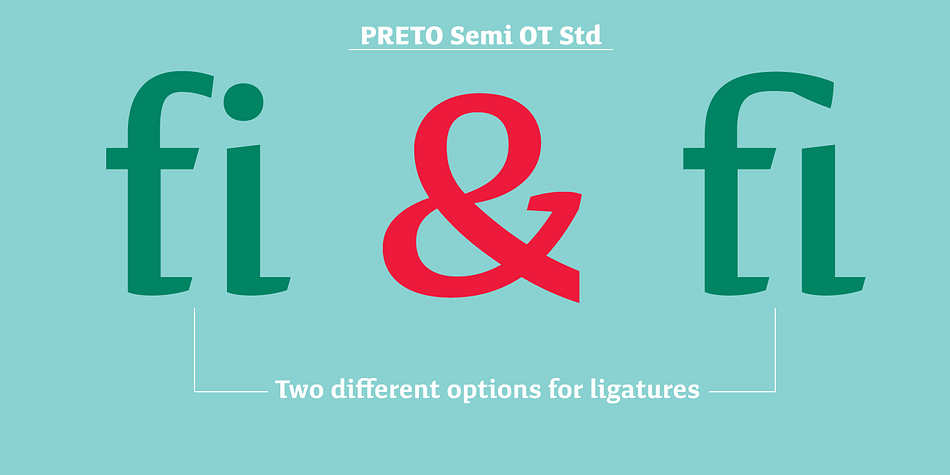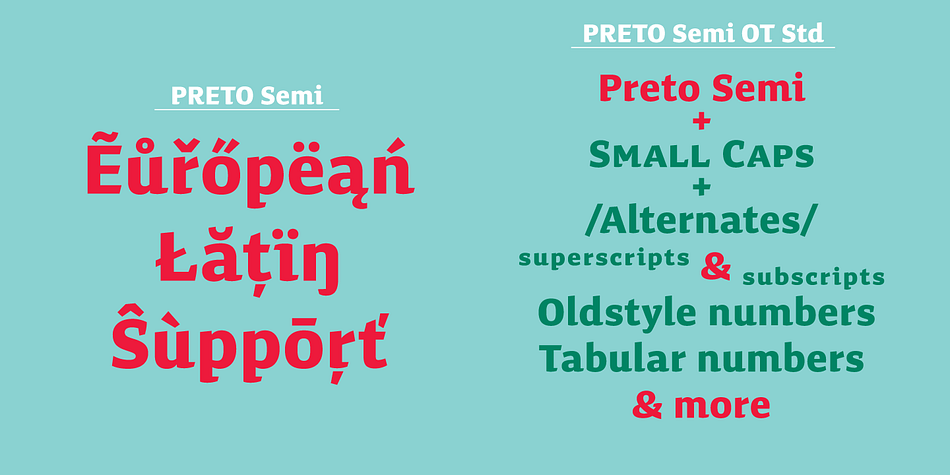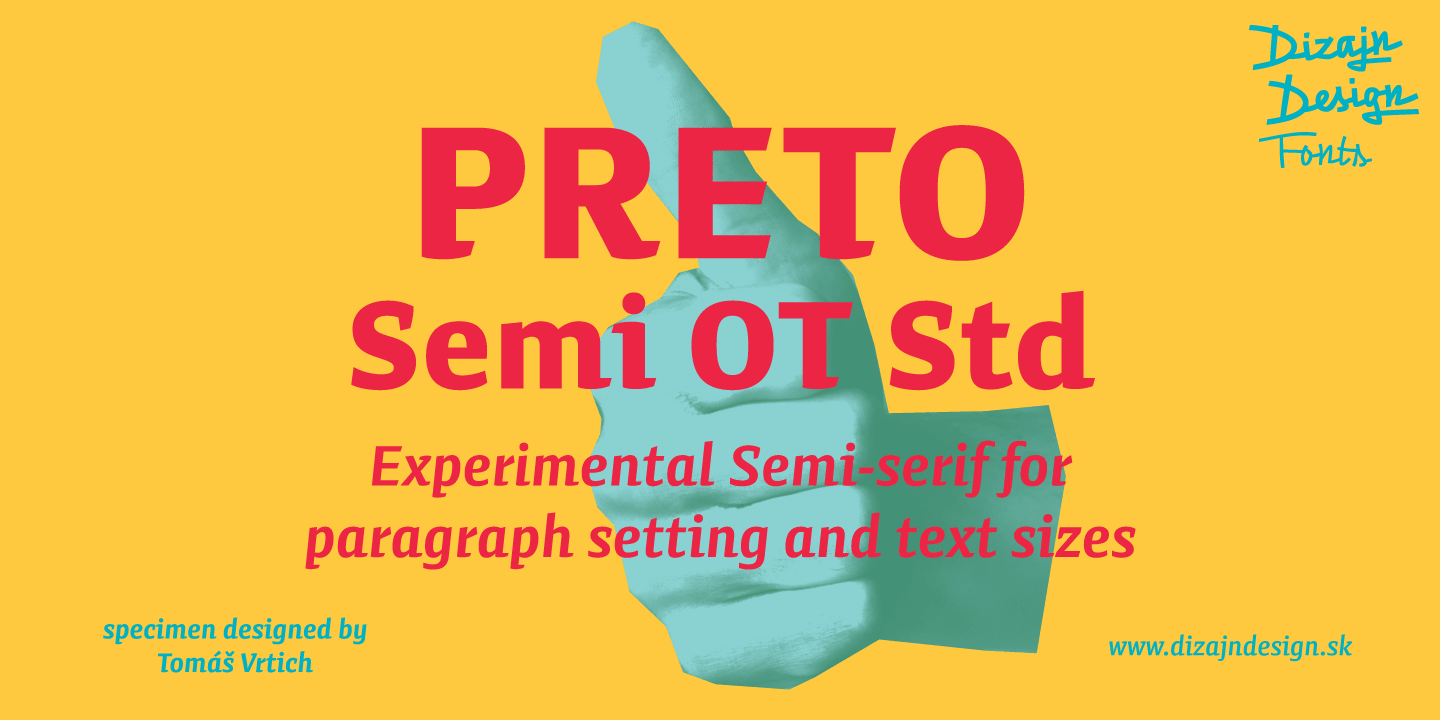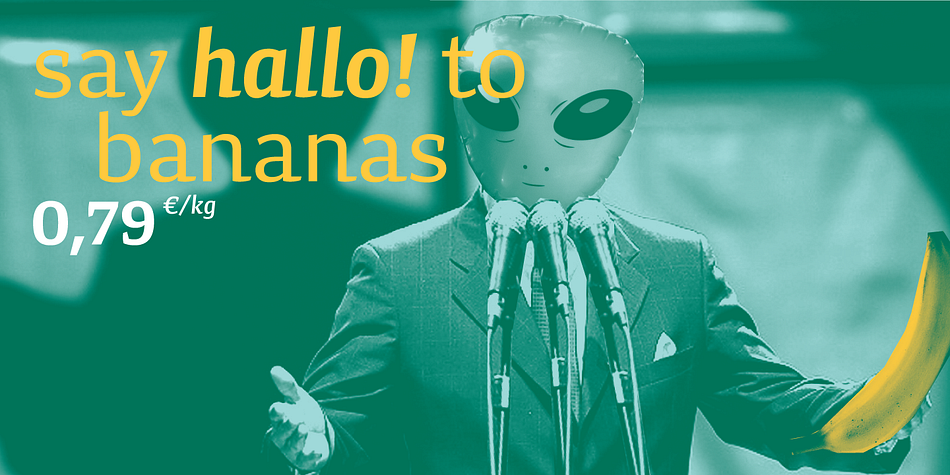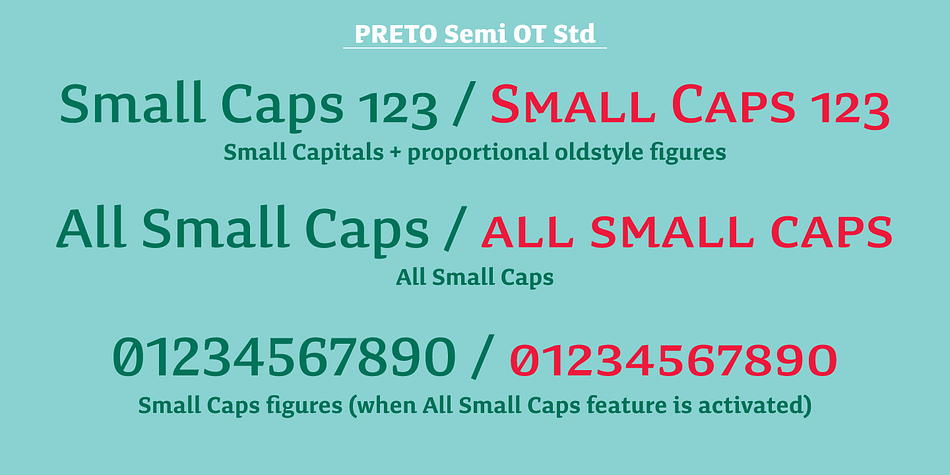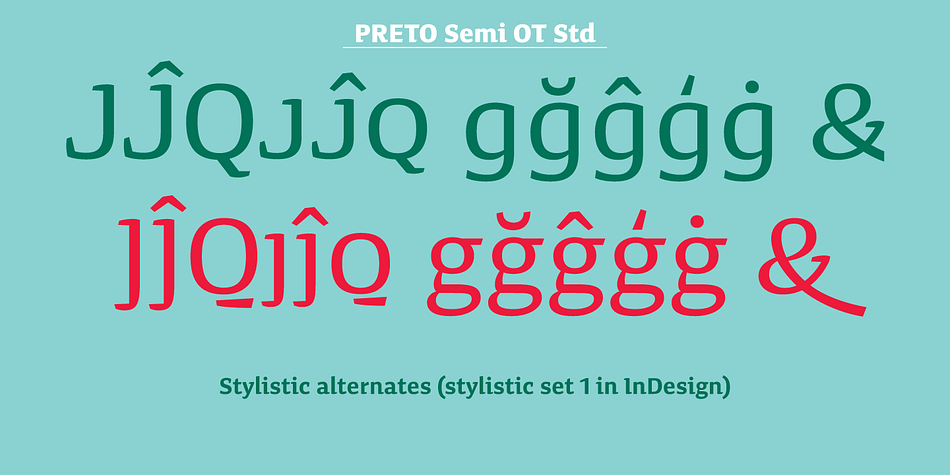
Preto Semi OT Std is a sans serif font family. This typeface has eight styles and was published by DizajnDesign.
Preto Semi is an experiment. It is an attempt to create a readable type for text point sizes (other than sans-serif and serif). Preto Semi is not a Sans with added serifs or Serif with serifs removed. The use of the serifs is redefined and used for other purpose(s).
The serifs became the extension of the stroke, they help to solve the spacing problem of sans-serif types and they use the primary function of serifs – keeping the eye on the baseline and emphasize the horizontal rhythm of the lines of text.
Preto Semi is intended for magazines and editorial design, as other members of Preto family.
Preto is an extensive type family, which explores the function of serifs on readability and legibility. Preto consists of three subfamilies: Sans, Semi and Serif. It is designed for multilingual typesetting. All of the subfamilies have equal gray value but different texture which can be use to differentiate languages.
The Preto sub-families have two text weights and two bold styles (Regular -> Bold, Medium -> Black). Every weight has a companion Italic style as well.